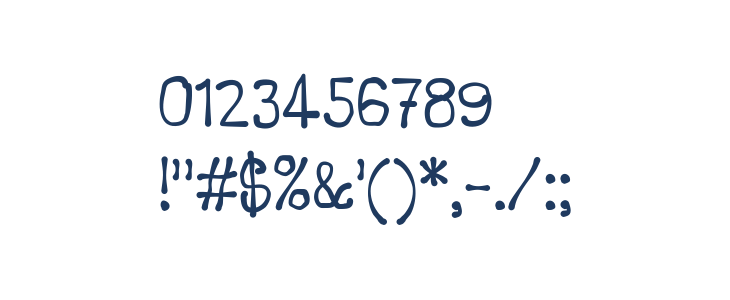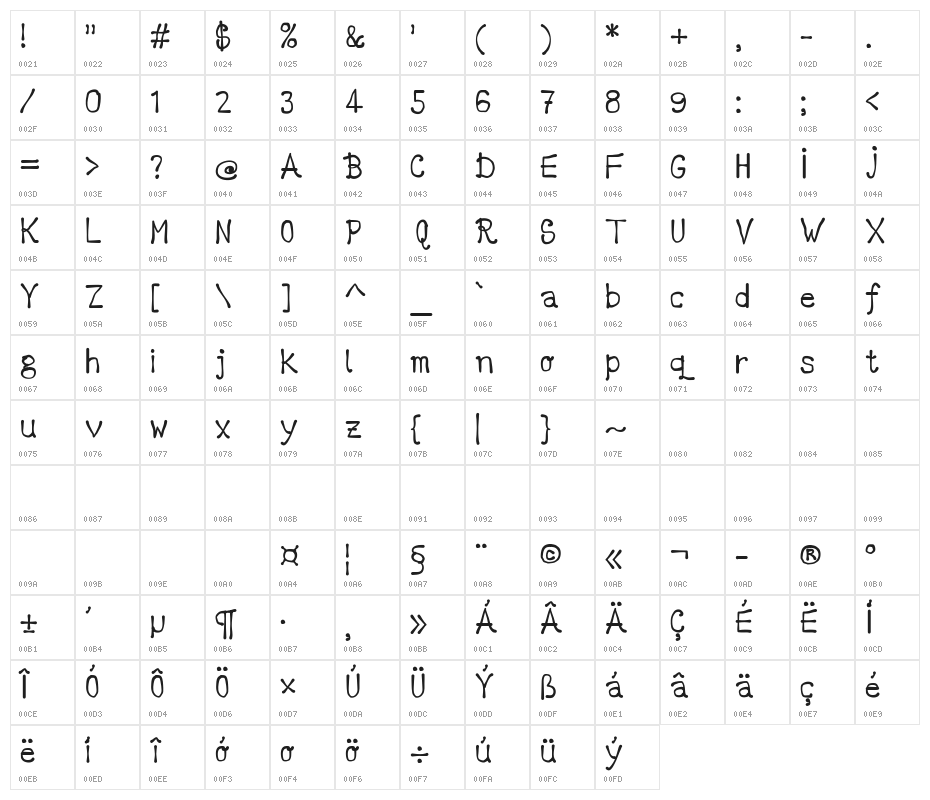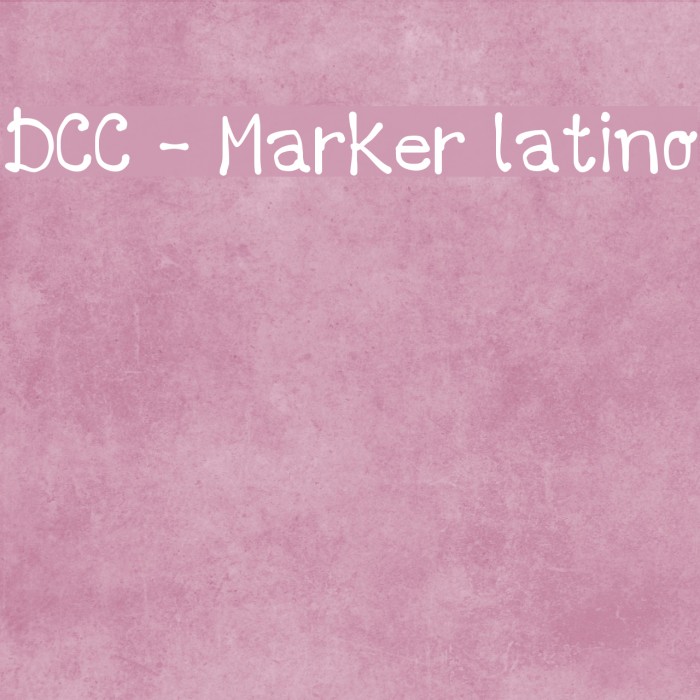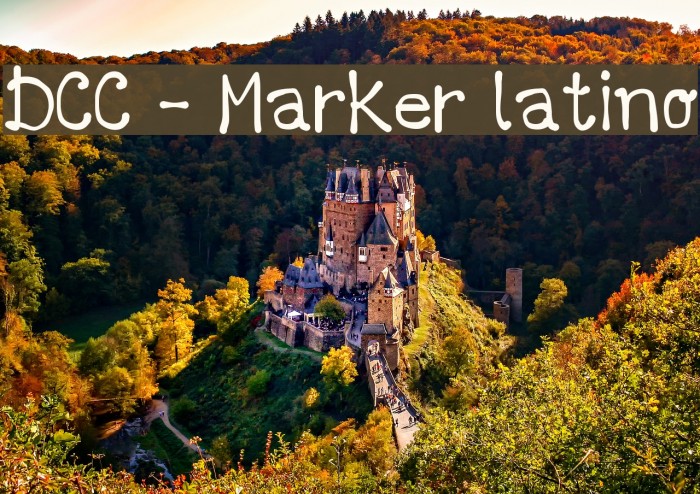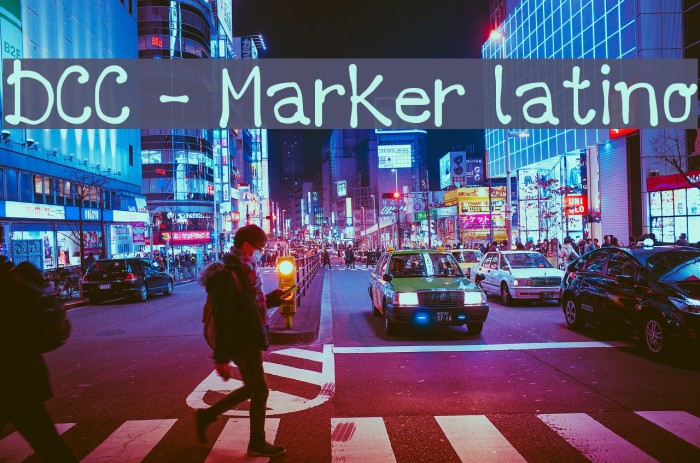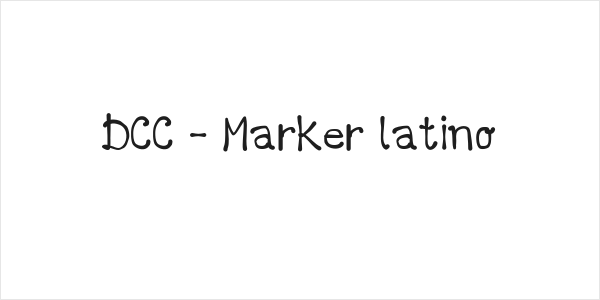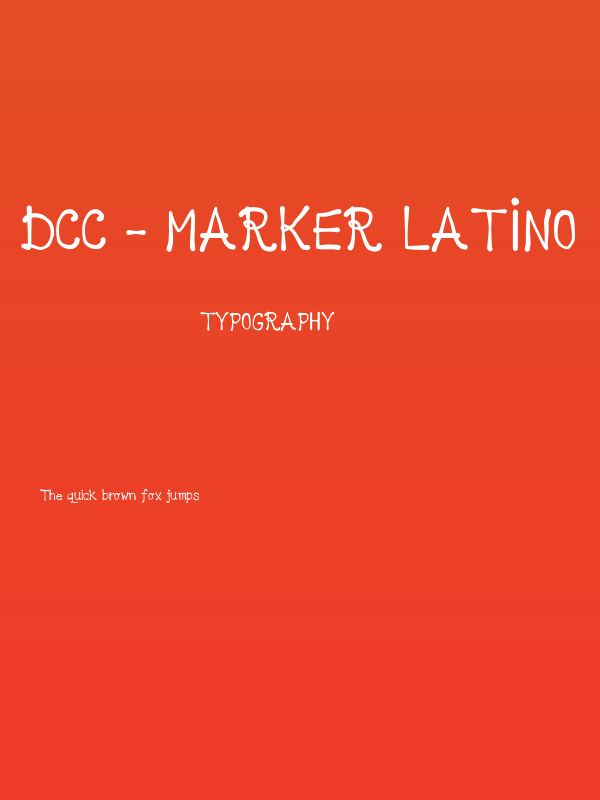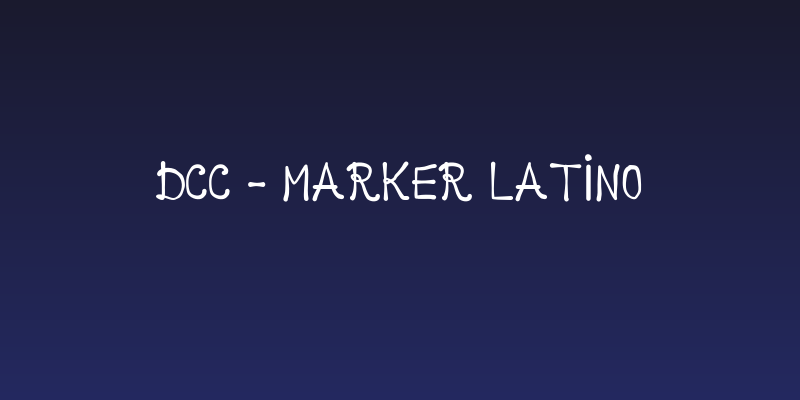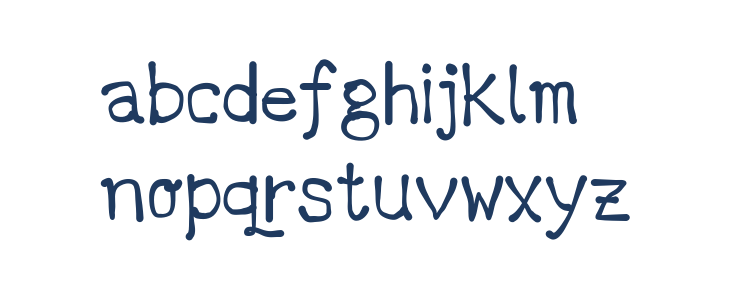
DCC - Marker latino Font
DCC - Marker latino Description
This font features a playful and casual handwritten style, reminiscent of marker or chalkboard writing. The characters are bold and rounded, with a consistent thickness throughout, giving it a friendly and approachable appearance. The uppercase letters are slightly taller than the lowercase, maintaining a uniform width that adds to its legibility. Numbers and special characters follow the same playful style, ensuring consistency across all text elements. The overall look is informal and relaxed, making it suitable for projects that require a personal touch.
| Proposed Projects | Ideal for children's books, casual invitations, greeting cards, and educational materials. |